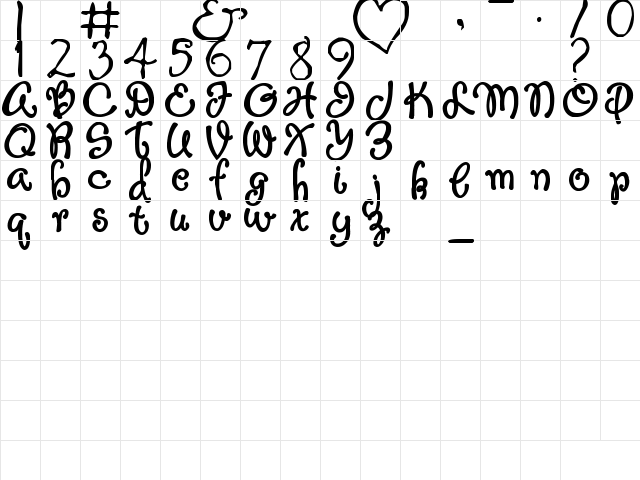
Not His Angel Regular
Design Context for Not His Angel Typeface
Not His Angel is a composed and adaptable typeface that performs quietly and consistently across a wide range of design contexts.